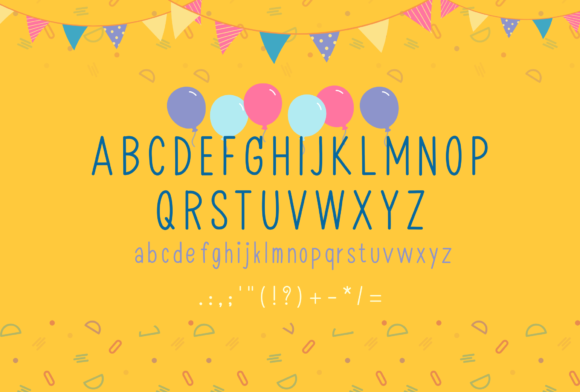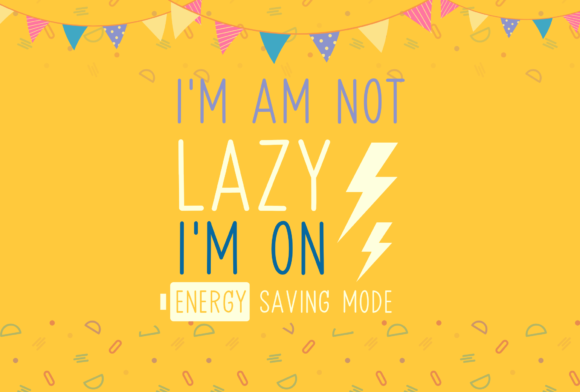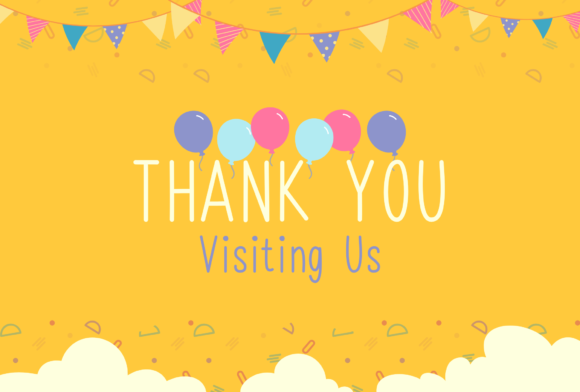
Introducing Feel Funny Font: The Ultimate Choice for Whimsical Designs
Are you a designer or crafter looking for a font that can add a touch of playfulness and friendliness to your creations? Look no further than Feel Funny Font! This thin, funny, friendly, and cute sans serif font is perfect for a wide range of designs that require a sweet and natural touch.
What Makes Feel Funny Font So Special?
Feel Funny Font is a unique and versatile font that can be used for various design projects, from children’s themed designs to crafts and more. Its sans serif design gives it a clean and modern look, while its thin lines and cute appearance make it perfect for adding a touch of whimsy to your creations.
Perfect for Children-Themed Designs
When it comes to designing for children, it’s essential to choose a font that is not only fun but also easy to read. Feel Funny Font ticks all the boxes, making it an excellent choice for children’s books, educational materials, and even kids’ party invitations. When paired with bright colors, this font can create a visually appealing and engaging design that kids will love.
Why Designers and Crafters Love Feel Funny Font
Designers and crafters love Feel Funny Font for its flexibility and versatility. Whether you’re creating a logo, a poster, or a social media graphic, this font can be used to add a touch of personality to your design. Its friendly and approachable appearance makes it perfect for brands that want to convey a sense of warmth and approachability.
Key Features of Feel Funny Font
- Thin and cute sans serif design: Gives your designs a clean and modern look
- Funny and friendly appearance: Adds a touch of playfulness to your creations
- Perfect for children-themed designs: Makes it an excellent choice for kids’ projects and educational materials
- Versatile and flexible: Can be used for a wide range of design projects, from logos to social media graphics
How to Use Feel Funny Font in Your Designs
Using Feel Funny Font in your designs is easy! Here are a few tips to get you started:
- Pair it with bright colors: Create a visually appealing design by pairing Feel Funny Font with bright and bold colors
- Experiment with different sizes: Use Feel Funny Font in different sizes to create visual interest and hierarchy in your design
- Combine it with other fonts: Mix Feel Funny Font with other fonts to create a unique and eye-catching design
Feel Funny Font is a unique and versatile font that can add a touch of playfulness and friendliness to your designs. Its thin, funny, friendly, and cute sans serif design makes it perfect for a wide range of creations, from children’s themed designs to crafts and more. Whether you’re a designer or crafter, Feel Funny Font is an excellent choice for anyone looking to create visually appealing and engaging designs.